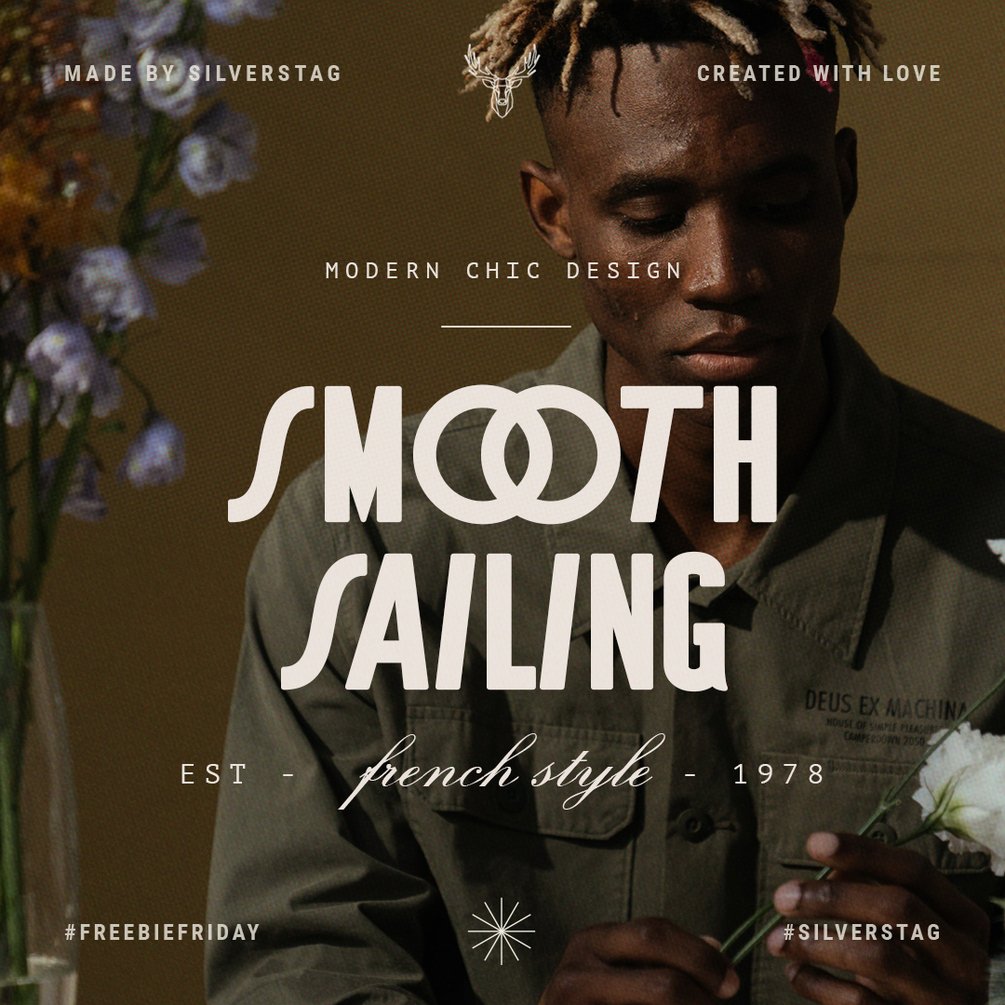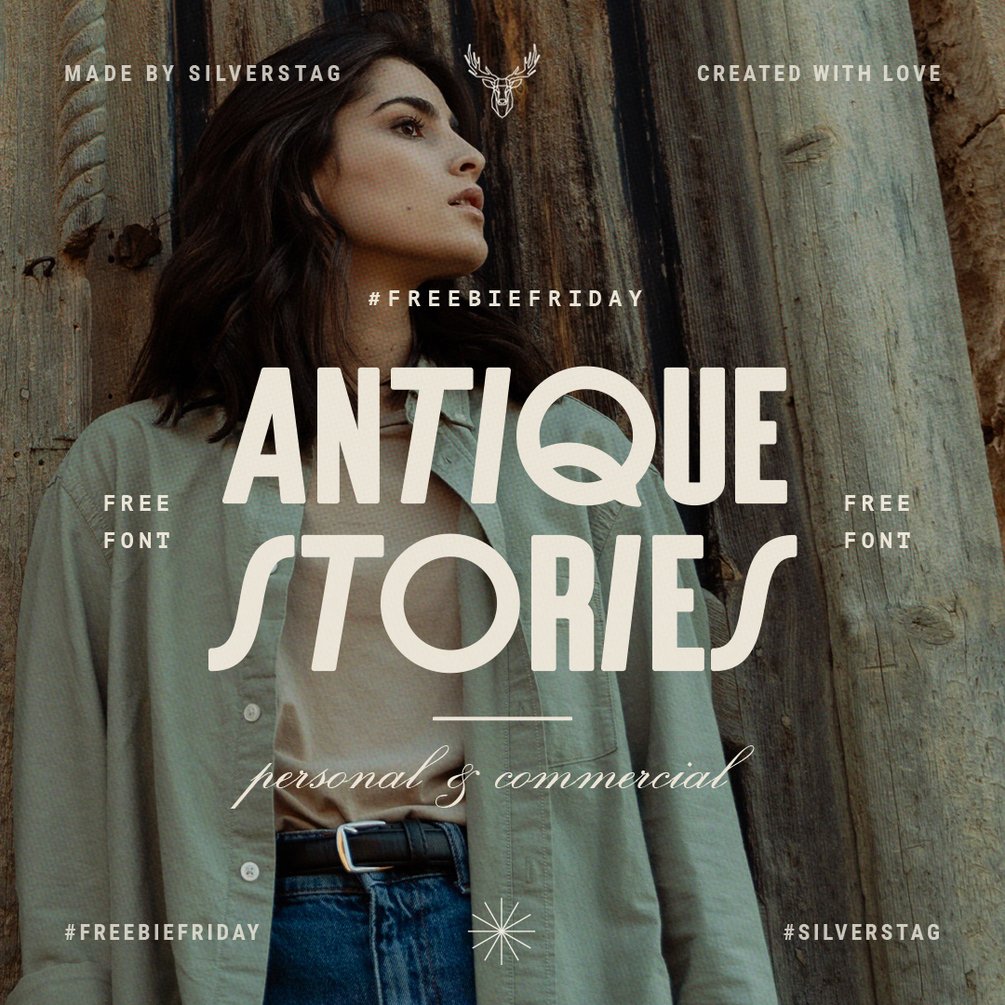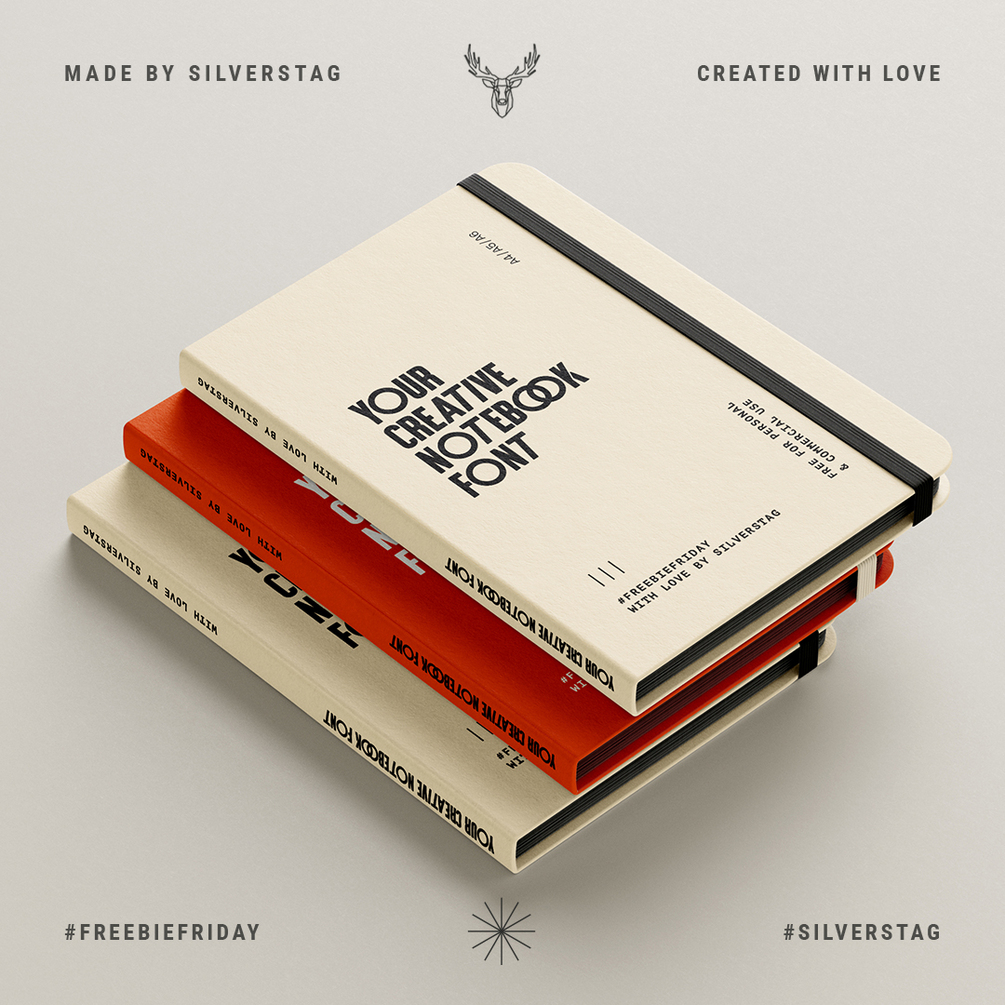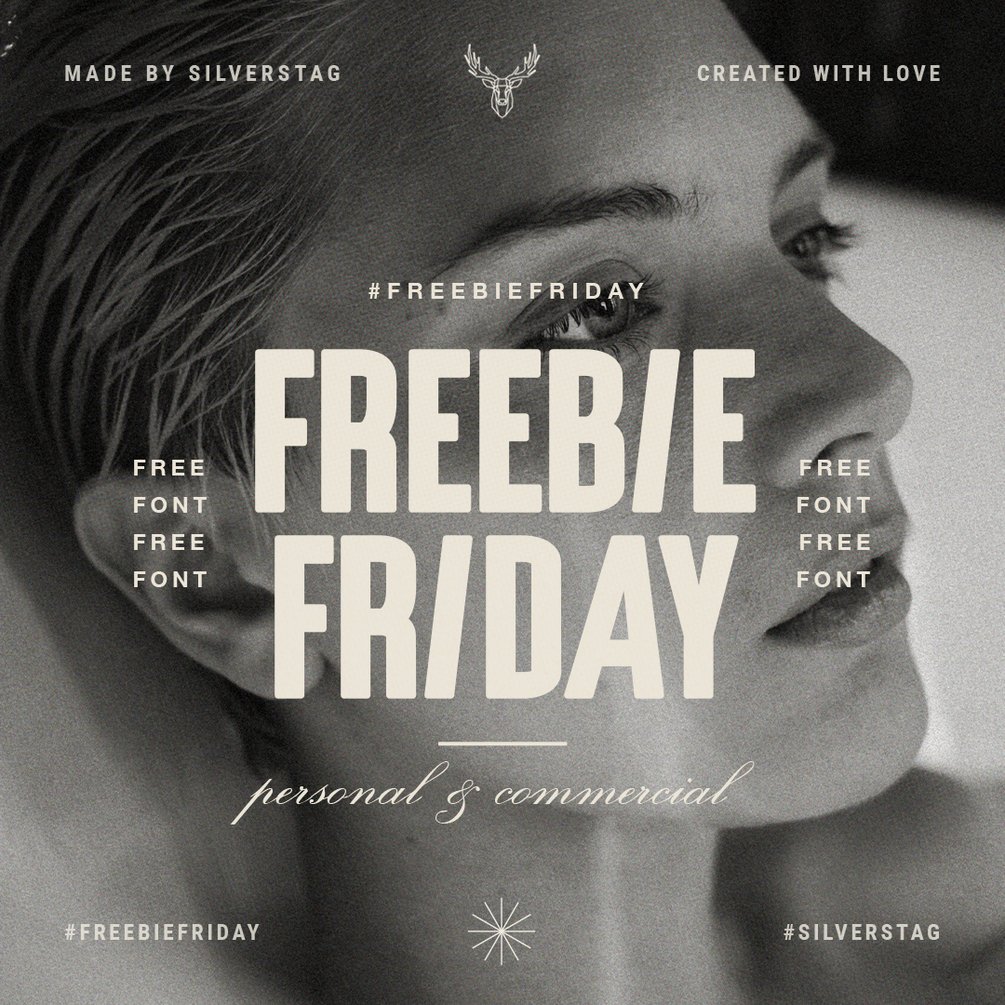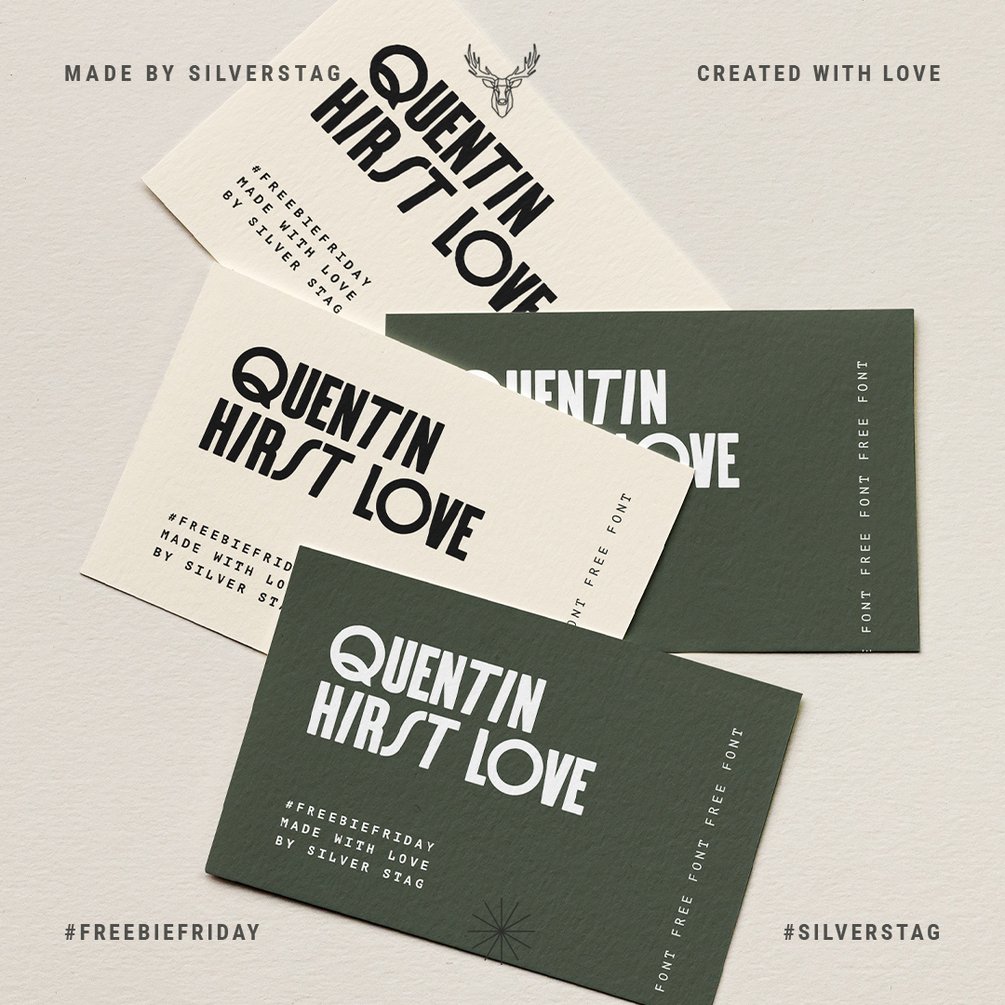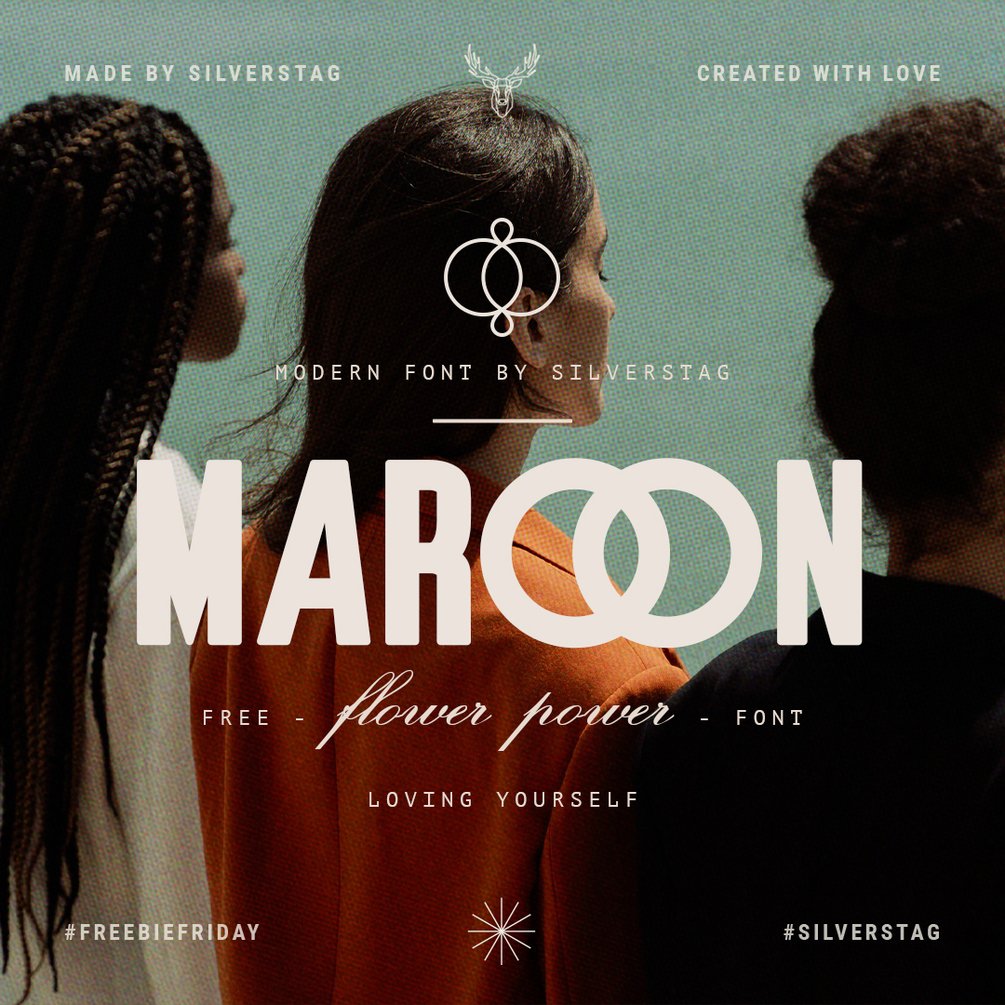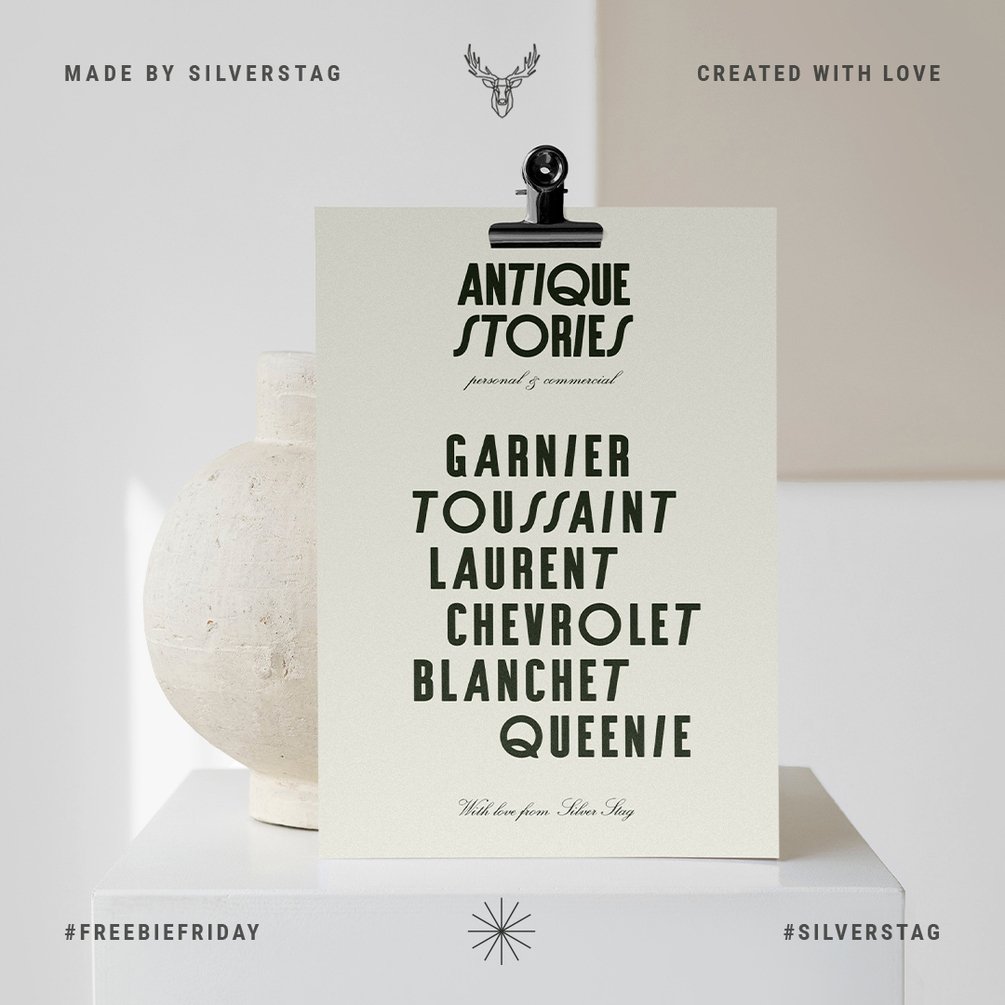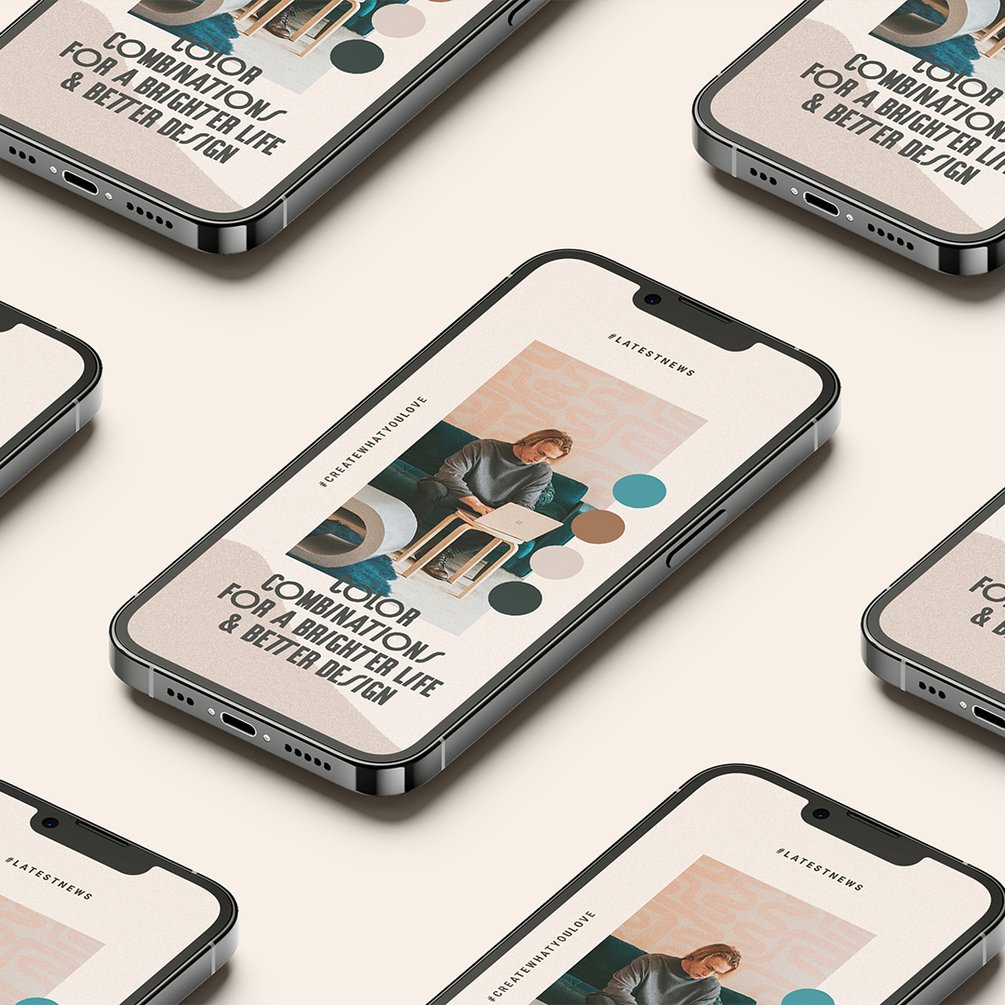
Antique Stories - FREE Modern Sans Font
Are you ready for a brand new look and unique perspective in your typography? Look no more, Antique Stories is my new rounded sans font that will make each of your projects 100% unique!
I am supper happy to present you my brand new, modern sans font. It is something I have been working on for quite some time now and I am sure you'll enjoy it's unique and playful look! The true chic look will elevate your work and help you create some new and unique designs.